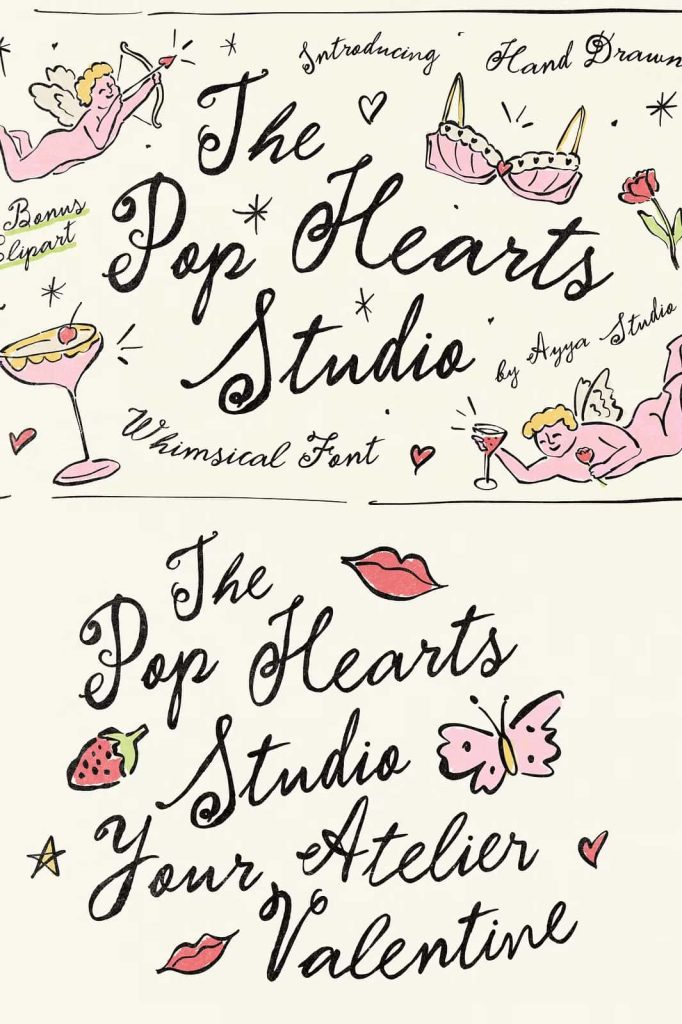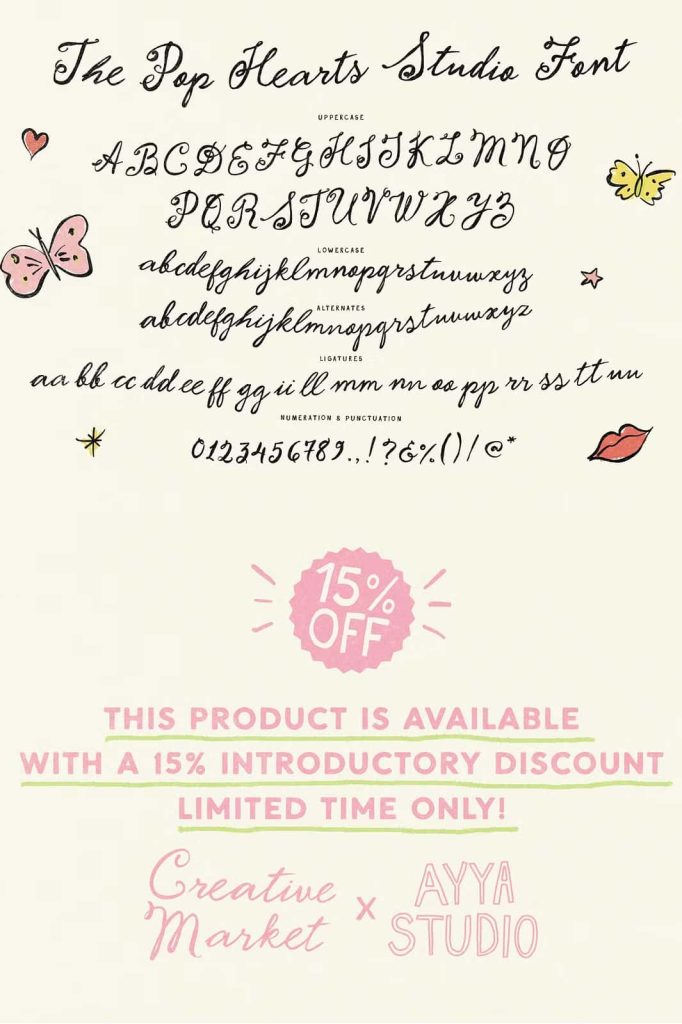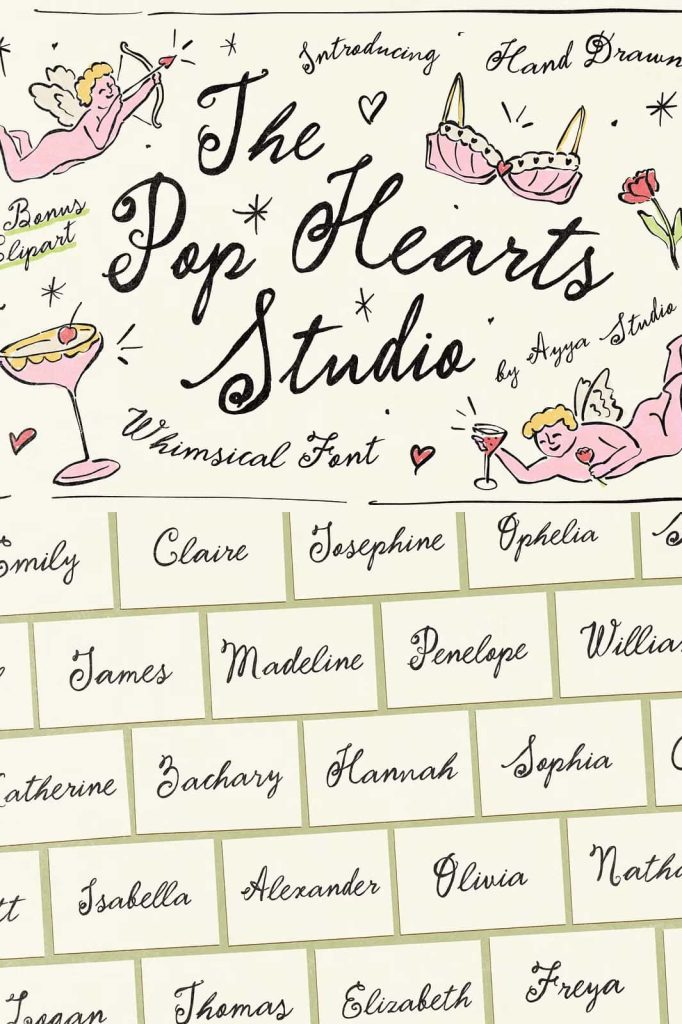
Pop Hearts Studio Whimsical Font
Pop Hearts Studio Font – Authentic Handwritten Typeface with Vintage Creative Charm
Pop Hearts Studio Font is a beautifully crafted handwritten typeface that embraces creativity, personality, and authentic imperfections. Inspired by hand-painted shop windows, vintage posters, and artistic studio lettering, this font captures the expressive character of genuine handwriting. Every letter feels natural, relaxed, and full of life, making it the perfect choice for designers who want typography that tells a story instead of simply displaying words.
Unlike rigid or overly polished fonts, Pop Hearts Studio celebrates individuality. The slightly imperfect strokes, natural spacing, and handcrafted details create an organic look that instantly adds warmth and personality to any design. Whether you’re building a memorable brand identity or designing eye-catching marketing materials, this typeface delivers an artistic touch that feels timeless and genuine.
A Handwritten Font Inspired by Real Creative Spaces
Pop Hearts Studio was inspired by the creative energy found in artistic neighborhoods, independent studios, and vintage storefronts. Imagine handwritten signs painted on the windows of small cafés, boutique shops, and creative workshops. Picture old posters displayed throughout the streets of New York, Paris, or Soho, where every brushstroke reflected human creativity rather than digital perfection.
This font captures that same expressive atmosphere by preserving the subtle irregularities that make handwritten lettering feel authentic. Every character has been carefully designed to maintain balance while still preserving the spontaneous quality of real handwriting.
Natural Letterforms with Genuine Character
The beauty of Pop Hearts Studio lies in its honest appearance. Instead of perfectly uniform characters, the font introduces subtle variations that create a comfortable handwritten rhythm. These small imperfections give your typography a friendly and approachable personality while maintaining excellent readability.
The result is a versatile handwritten font that feels artistic without becoming difficult to read. Whether used for headlines, logos, product packaging, or promotional graphics, the lettering remains expressive and visually engaging.
Perfect for Creative Branding Projects
If your brand values originality, craftsmanship, and creativity, Pop Hearts Studio provides the typography to match. Its handwritten style helps businesses create a more personal connection with customers while maintaining a professional visual identity.
This typeface works exceptionally well for boutique brands, lifestyle businesses, fashion labels, artisan products, cafés, creative agencies, photography studios, floral shops, handmade products, and independent businesses looking for typography with authentic personality.
Ideal Uses for Pop Hearts Studio Font
• Creative branding
• Logo design
• Handmade product packaging
• Boutique branding
• Café and restaurant menus
• Social media graphics
• Editorial layouts
• Book covers
• Magazine headlines
• Website banners
• Marketing materials
• Greeting cards
• Wedding stationery
• Creative presentations
• Posters and promotional artwork
Create Typography with Personality
Typography is one of the strongest elements of visual communication, and Pop Hearts Studio helps every message feel more human. The handcrafted appearance immediately attracts attention while creating an emotional connection with readers. Instead of appearing overly corporate or mechanical, your designs become approachable, artistic, and memorable.
This makes the font particularly effective for businesses that want to communicate authenticity, creativity, and craftsmanship across both digital and printed media.
Excellent for Print and Digital Design
Pop Hearts Studio performs beautifully across a wide range of design applications. In print, the handwritten texture adds warmth to packaging, labels, magazines, posters, invitations, and promotional materials. Online, it enhances websites, social media content, advertising campaigns, digital banners, and email marketing with a distinctive handcrafted appearance.
Its balanced letterforms ensure your typography remains readable while still preserving the artistic style that makes handwritten fonts so appealing.
Features
• Authentic handwritten style
• Natural and organic letterforms
• Inspired by vintage shop signs and creative studios
• Expressive handcrafted appearance
• Excellent readability
• Perfect for branding and logo design
• Ideal for print and digital projects
• Versatile for creative industries
Why Choose Pop Hearts Studio Font?
Pop Hearts Studio offers far more than simple handwritten lettering. It delivers character, warmth, and artistic expression that help your designs stand apart. The font successfully captures the imperfect beauty of traditional hand-painted typography while remaining polished enough for professional branding.
Bring Authentic Creativity to Every Design
Pop Hearts Studio Font is the perfect choice for designers who appreciate genuine handcrafted typography. Inspired by vintage posters, creative neighborhoods, independent studios, and hand-painted storefronts, this font transforms ordinary text into expressive visual communication. Whether you’re designing for a boutique brand, launching a creative business, producing stylish marketing materials, or building memorable social media content, Pop Hearts Studio adds personality, warmth, and timeless artistic appeal to every project.